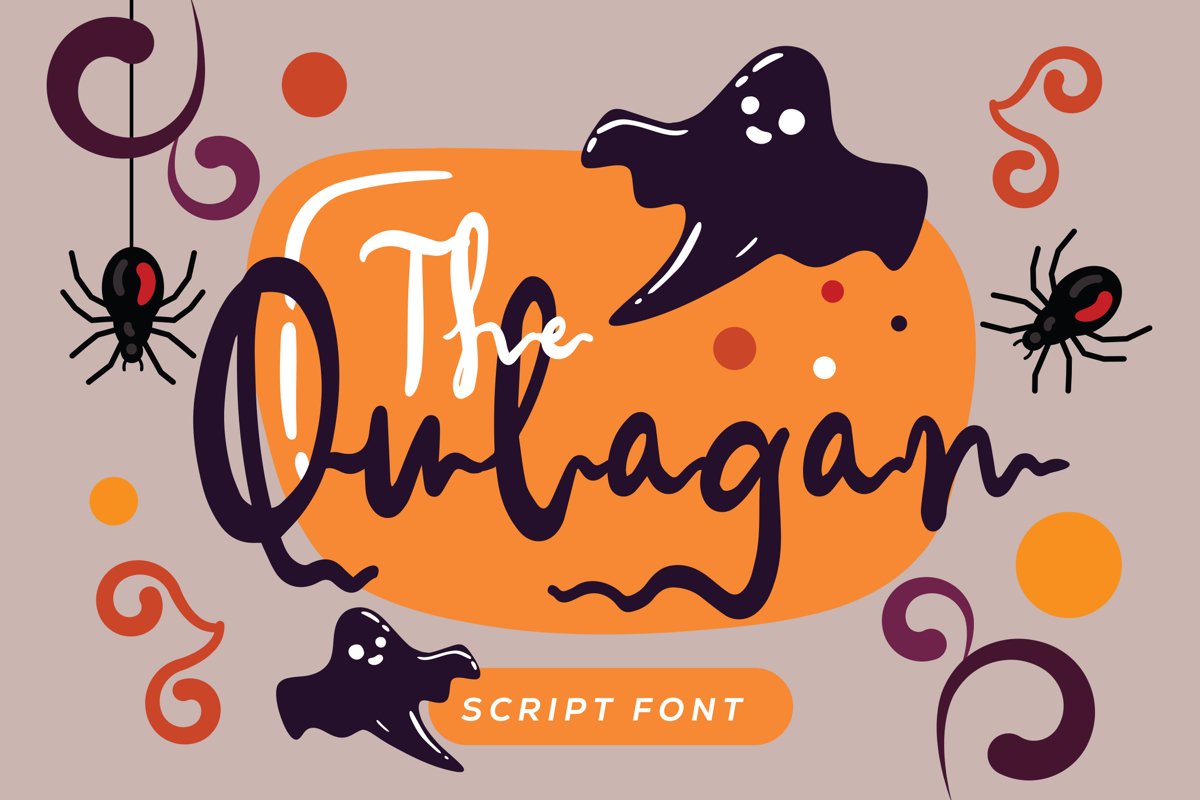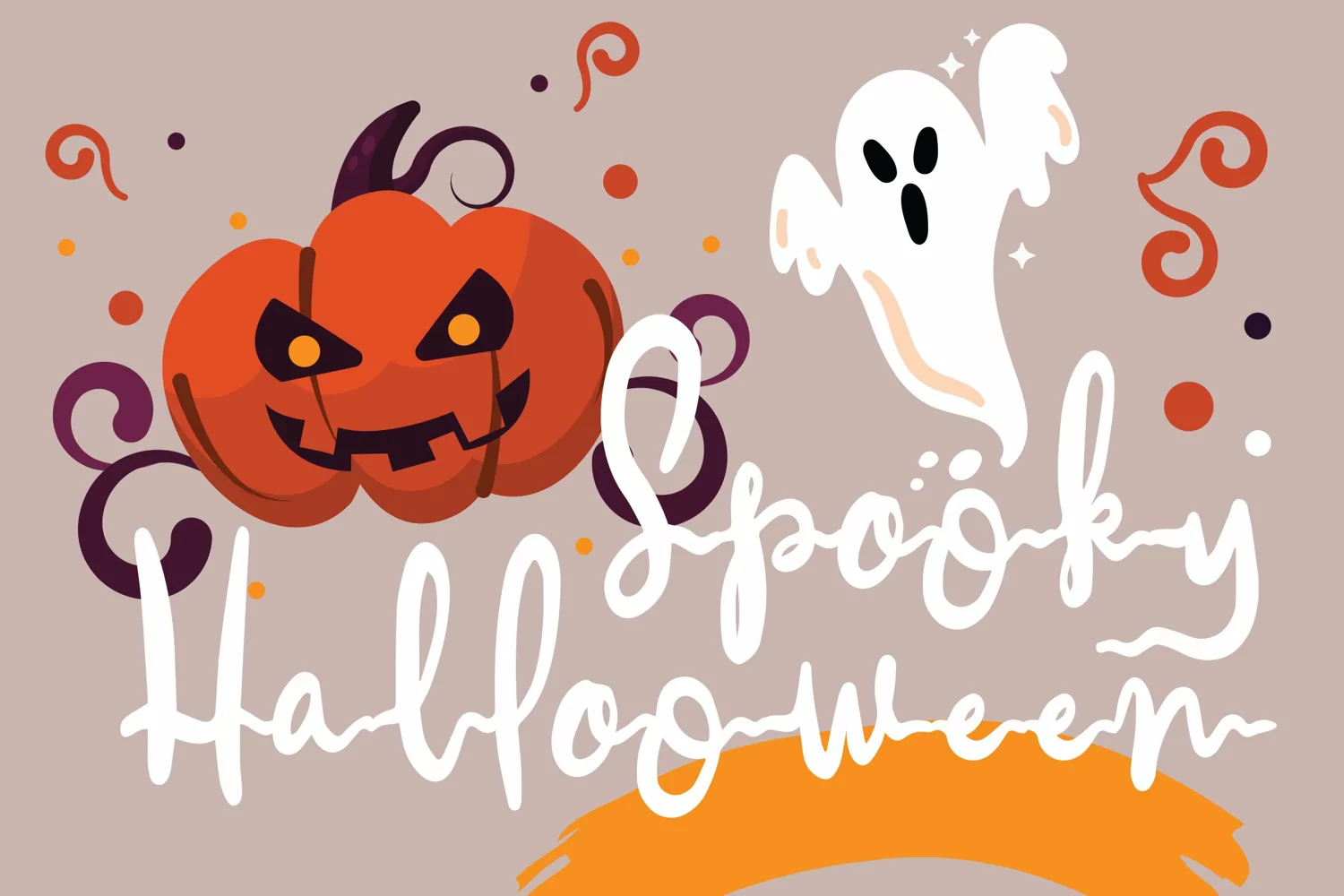
Qulagan - Hallowen Fonts that contain lowercase, uppercase, symbol, and also support multi language. There’s a lot ligatures in this font. This Font also comes with ligatures, alternates and many more. this font suitable for fashion, branding, catalog and other design what you want.
Qulagan